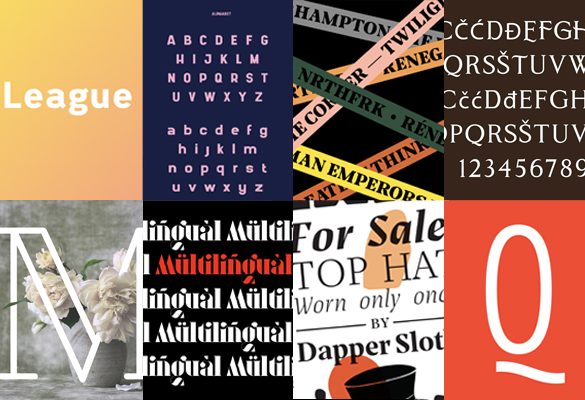
League Mono is a mashup of sorts, inspired by some beautiful forms found in both Fira Mono, Libertinus Mono, and Courier. League Mono was created in glyphs using masters for the UltraLight, Regular, and Bold weights, and interpolated instances for the Light and SemiBold weights. Designed by Tyler Finck.
The Donau font is named after the German name for the river Danube. It is an art nouveau inspired sans and slab serif typeface, sharing proportions and widths across two weights. One of many beautiful display fonts, it is intended for any kind of display use as well as short amounts of text. Designed by Hans Renzler, Dmitrij Ritter, Igor Labudovic (Renzler Design).
It started as a student project but then grew to its full potential, becoming the gorgeous font that is now. The font is based on geometric shapes and has a very classy vintage look. Cheque looks best when used for headlines or compositions. Designed by Mirela Belova.
Didones inspired â sturdy and âmechanicalâ Neumann. It all started with the idea of a revival of the Quirinus typeface, designed by Alessandro Butti and published by the Italian type foundry Nebiolo back in 1939. We first saw the typeface back in 2012 in the Vasil Ionchevâs book âĐšŃĐžŃŃŃŃ ĐżŃДз ĐČĐ”ĐșĐŸĐČĐ”ŃĐ”â (not translated in English) and instantly fell in love with it â it was a different kind of high-contrast design â way more technical-looking than the other didones. Designed by Alexander Nedelev and Veronika Slavova.
The prospectus typeface is a new and bold contemporary serif typeface in 12 styles, designed by Dave Bailey, and available exclusively from The Lost Type Co-op. Designed by Dave Bailey.Â
Shrimp was carefully crafted to form structured, strong and stylish letterform. Shrimp looks perfect for posters, eye-catching headlines, loud messages, and other creative projects. Be charming, be a shrimp! Designed by Anton Darri PĂĄlmarsson.
This is Cobaissi, an elegant serif font that hides quality within its nooks. Provided in 2 formats: OTF and TTF, the multilingual font offers a selection of uppercase letters that are met with a more classic version for those who need to reflect firmness and confidence. You can even use a mix of 2 for a dynamic presentation for your logotypes and branding designs and add Cobaissi to UX and UI projects, invitation cards, posters, and many others. Â
Kate is an elegant serif typeface inspired by the world of Luxury. Kate typeface includes 3 font weights, awesome ligatures, numerals, and many alternates. This font is perfect for elegant logo design, posters, letterheads, packaging designs and so much more. Designed by Jérémie Gauthier.
Okta Neue is an extended version of Okta family. It inherits the best traits of Oktaâgreat legibility, simple geometric letters shapes, low contrast across all stylesâbut also introduces what Okta fell short of extensive language support and enhanced OpenType features. Okta Neueis a neutral typeface that is a great workhorse for designers, typographers, and other font users alike. Designed by Eugene Tantsurin.